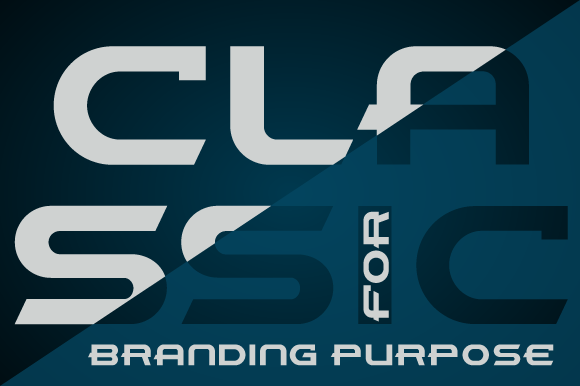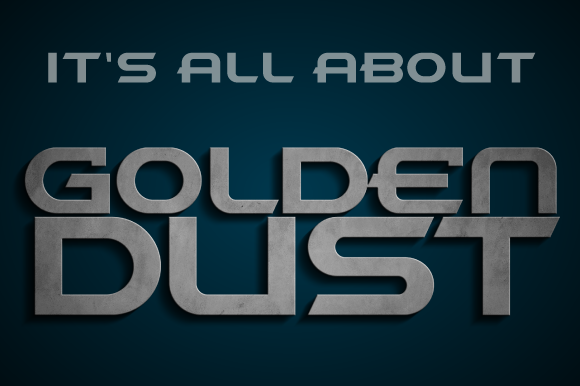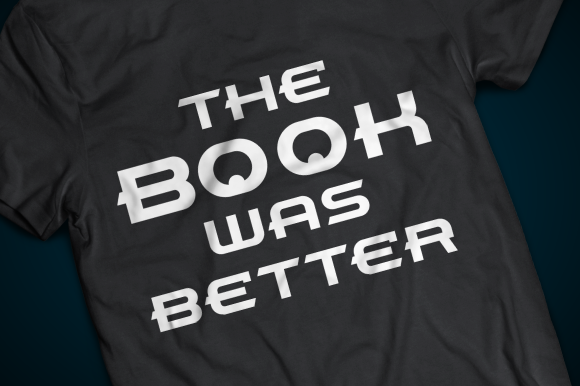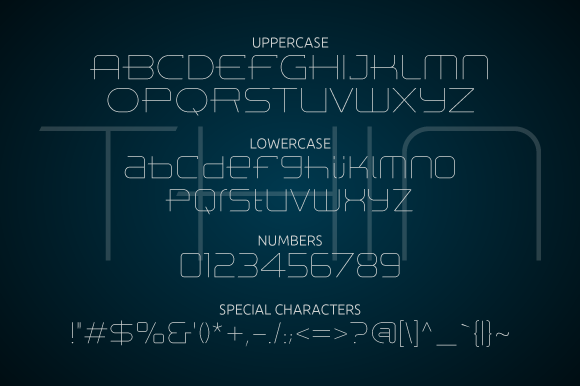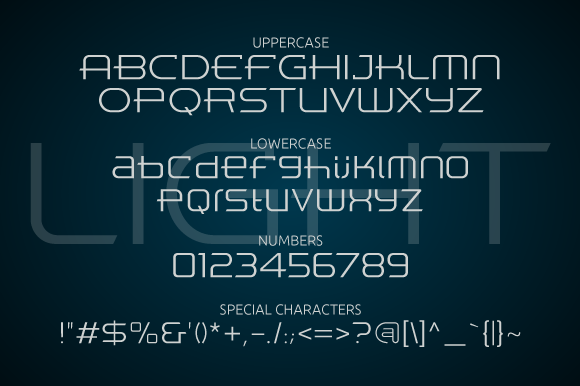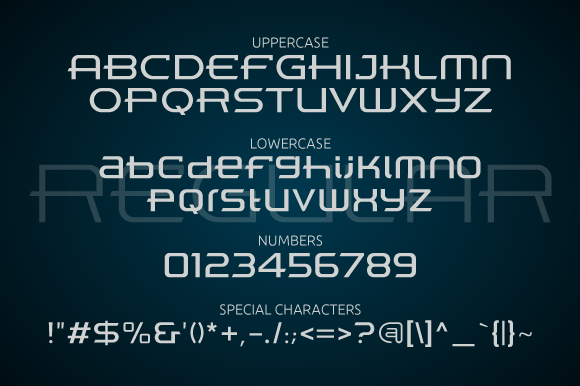
Peloric Font – Free Download
Introduction to Peloric Font
Introducing fresh Peloric sans typeface which is well crafted for the classic and modern outlook.
It can be read easily from a small size to a large size Feeling fresh & trendy with itโs distinctive visual.
Key Features of Peloric Font
Why Choose Peloric Font?